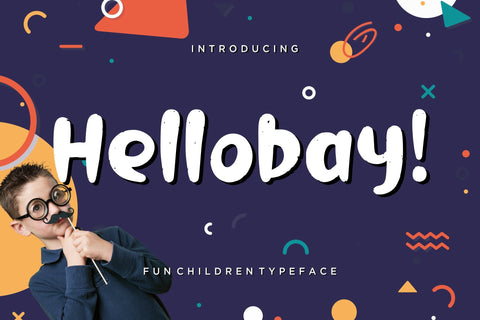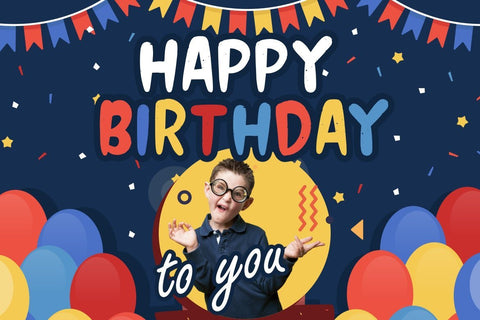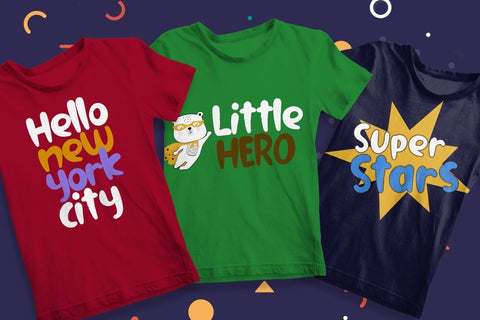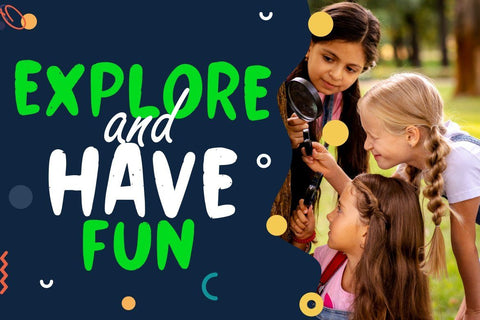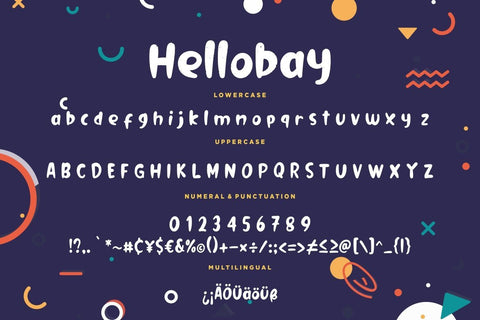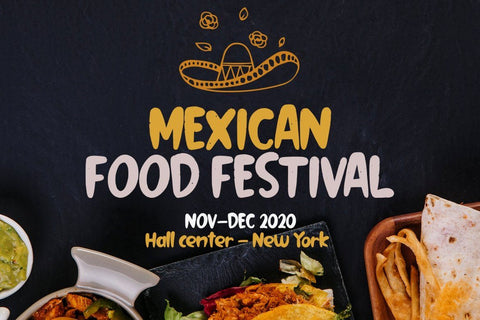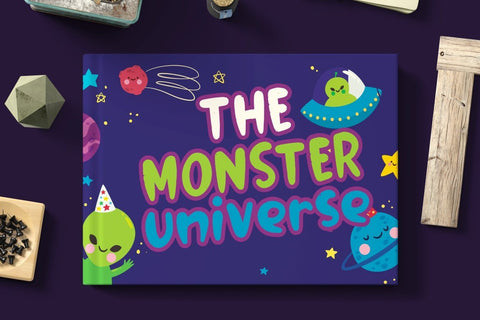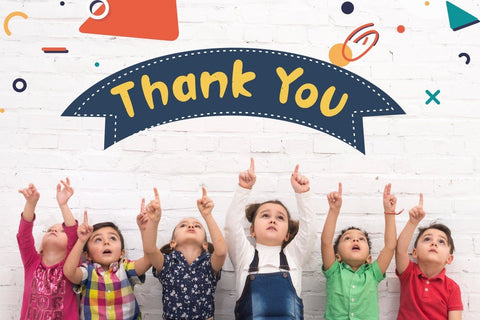
Hellobay Fun Children Typeface
Hellobay is fun brush font which suitable to use for children related occasion.
Hellobay is perfect for branding projects, logo, wedding designs, social media posts, advertisements, product packaging, product designs, label, photography, watermark, invitation, stationery and any projects that need handwriting taste.
- Ligature
- Fonts include multilingual support for; ä ö ü Ä Ö Ü ß ¿ ¡